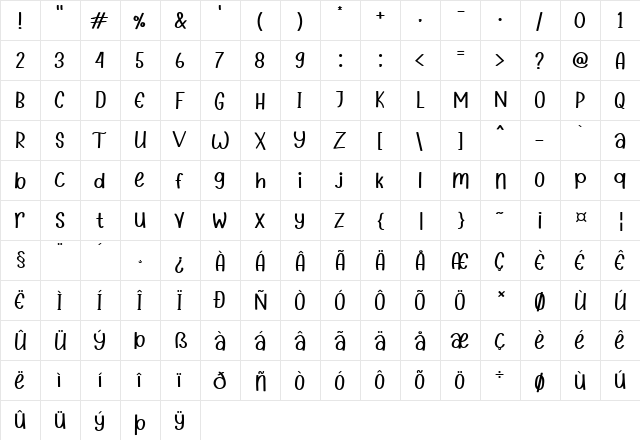
Kidstar Regular
Design Context for Kidstar Typeface
Kidstar has an approachable, lighthearted character — its loose, expressive forms are well-suited to children's content, casual branding, and fun-first design.
Font Pairing: Pairs well with a rounded or humanist sans for body copy, maintaining the friendly tone without relying on Kidstar to carry extended reading.
Pro Tip: Use Kidstar at larger display sizes where its expressive character can land. Pair with a clean, simple sans for body copy to maintain readability.